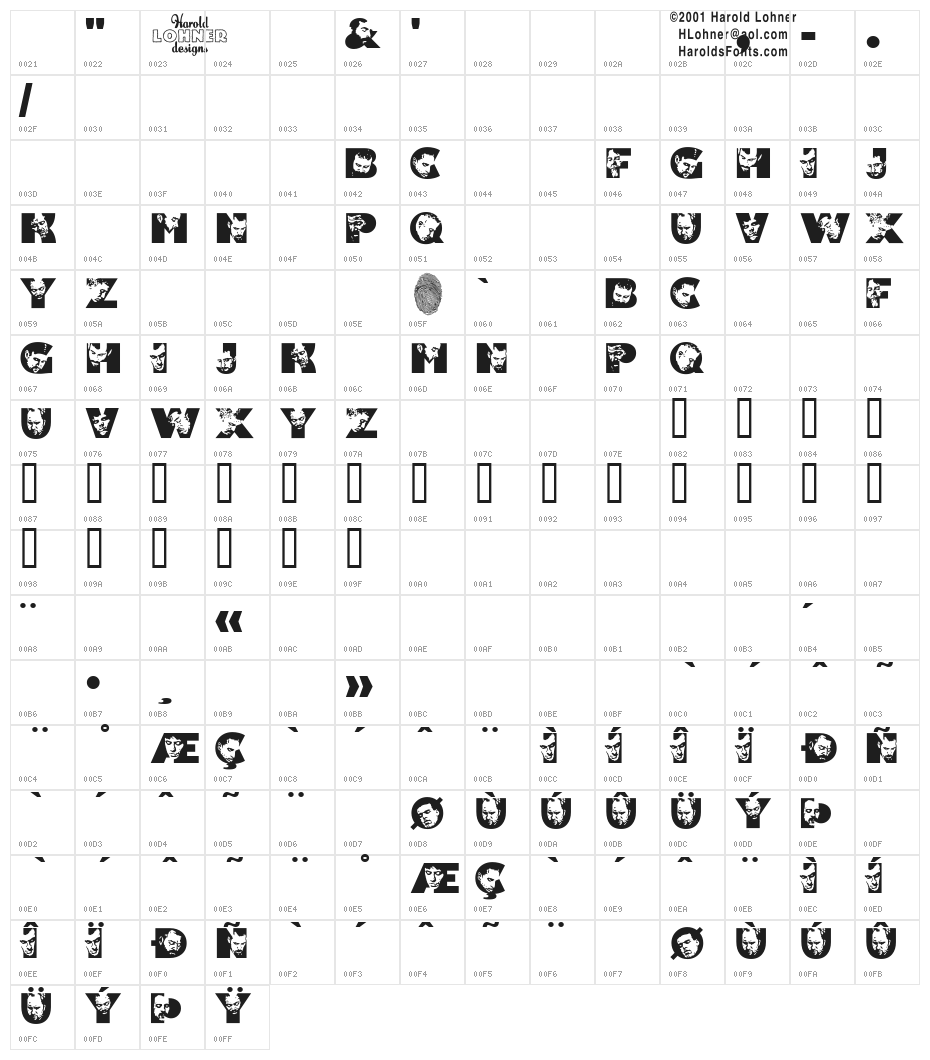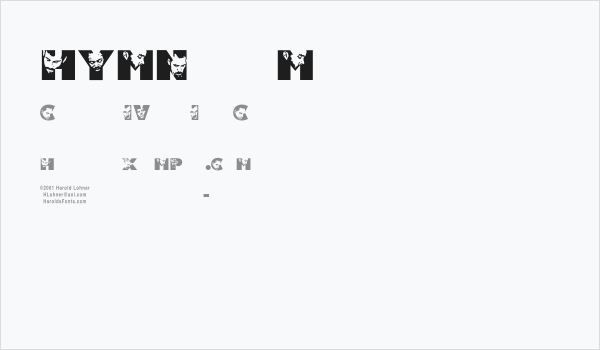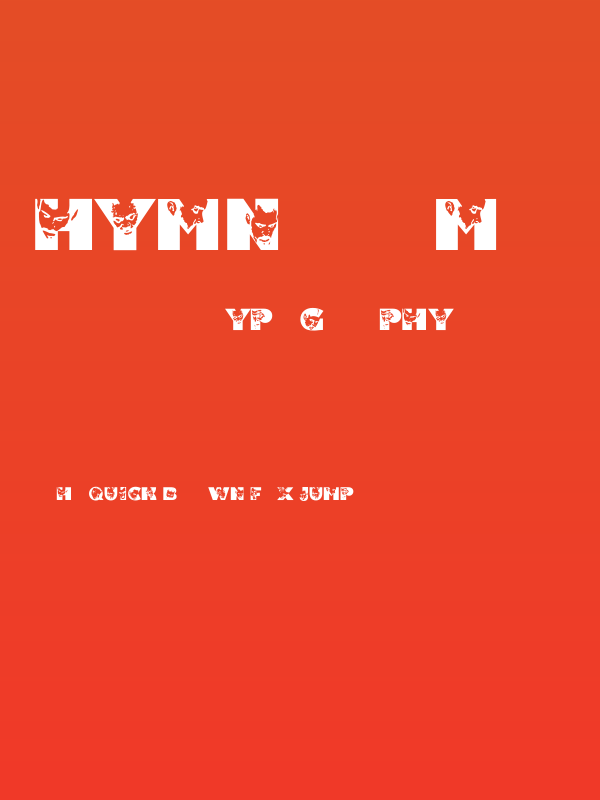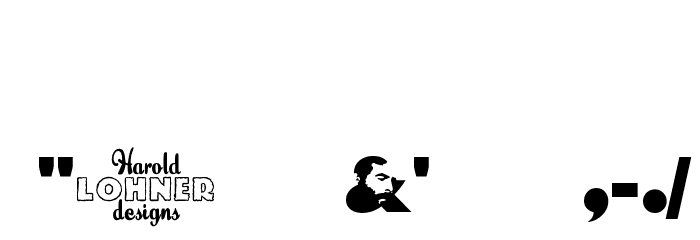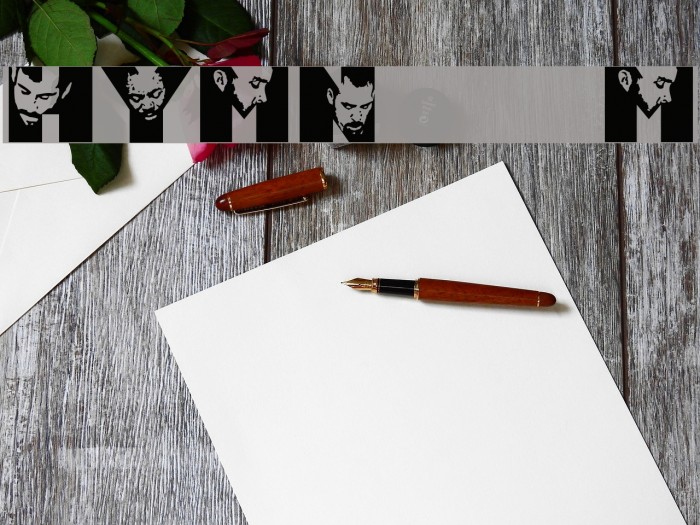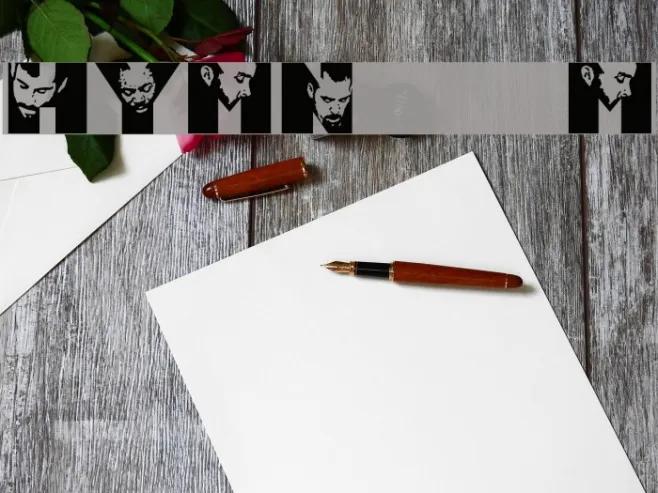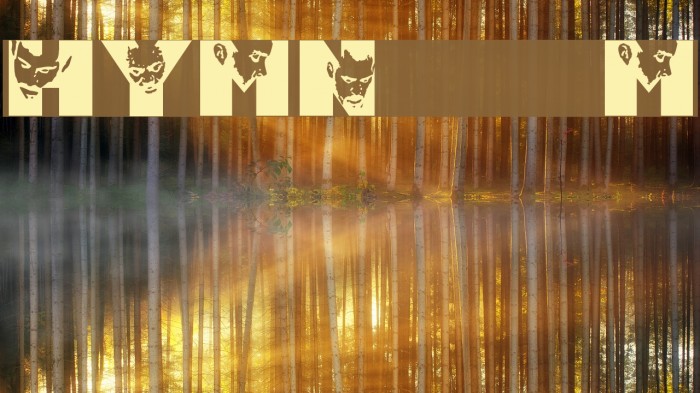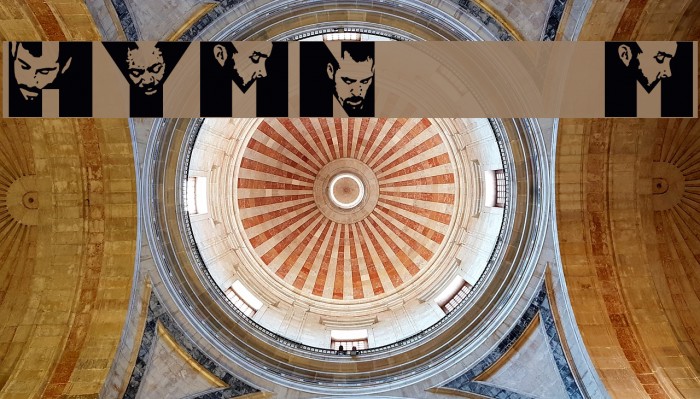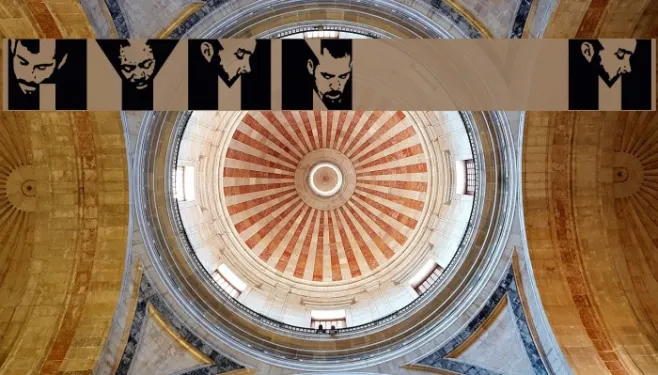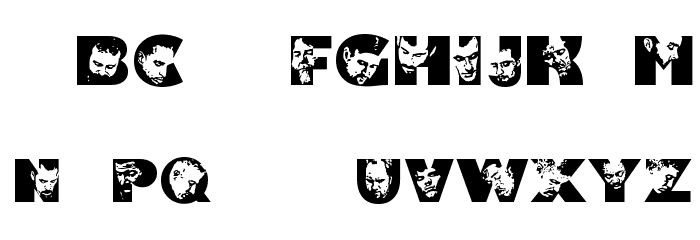
Hymn DEMO Font
Hymn DEMO Description
This font features a unique and bold design where each character is filled with intricate illustrations of faces, creating a striking visual impact. The letters are uppercase and have a solid, blocky appearance, making them stand out prominently. The artistic detail within each character adds a decorative element, making it suitable for creative and eye-catching designs. The font has a modern and edgy feel, perfect for projects that require a bold statement.
| Overall Style | Modern, Artistic |
| Proposed Projects | Ideal for poster designs, album covers, artistic branding, and any project requiring a bold, creative touch. |